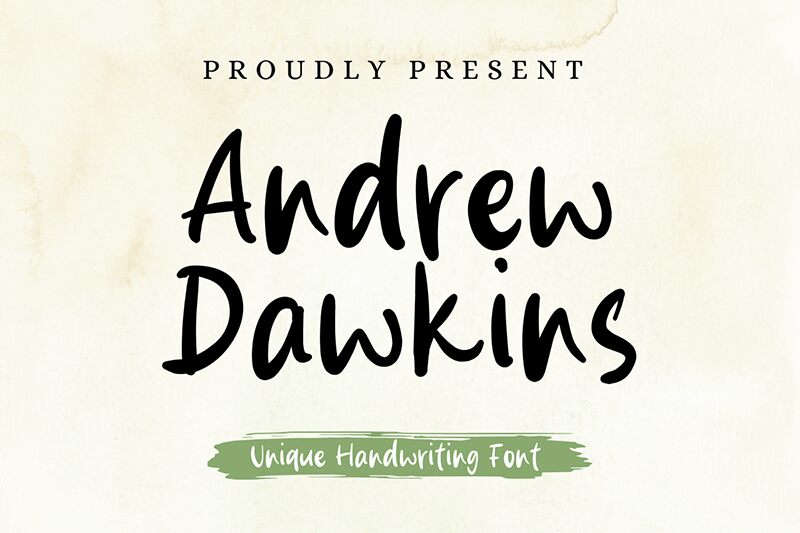
Andrew Dawkins
Andrew Dawkins font has a relaxed feel with its handwritten appearance by Viola Type. Its approachable aesthetic offers a casual style and modern vibe, one which instantly connects with readers by offering familiarity and, at times, nostalgia. Its animated feel makes it approachable for all and stands as a great option for texts where simplicity is required.
Andrew Dawkins is now available so you can create wonderful prints and engaging designs using it. This free handwritten font can become part of your logos and branding designs or it can appear within stationery projects such as greeting cards and wedding/graduation invitations. The natural flow will make all books look better including children’s storybooks, so maybe this dandy font should be tested on covers first as the best picture books have great covers to match their content.